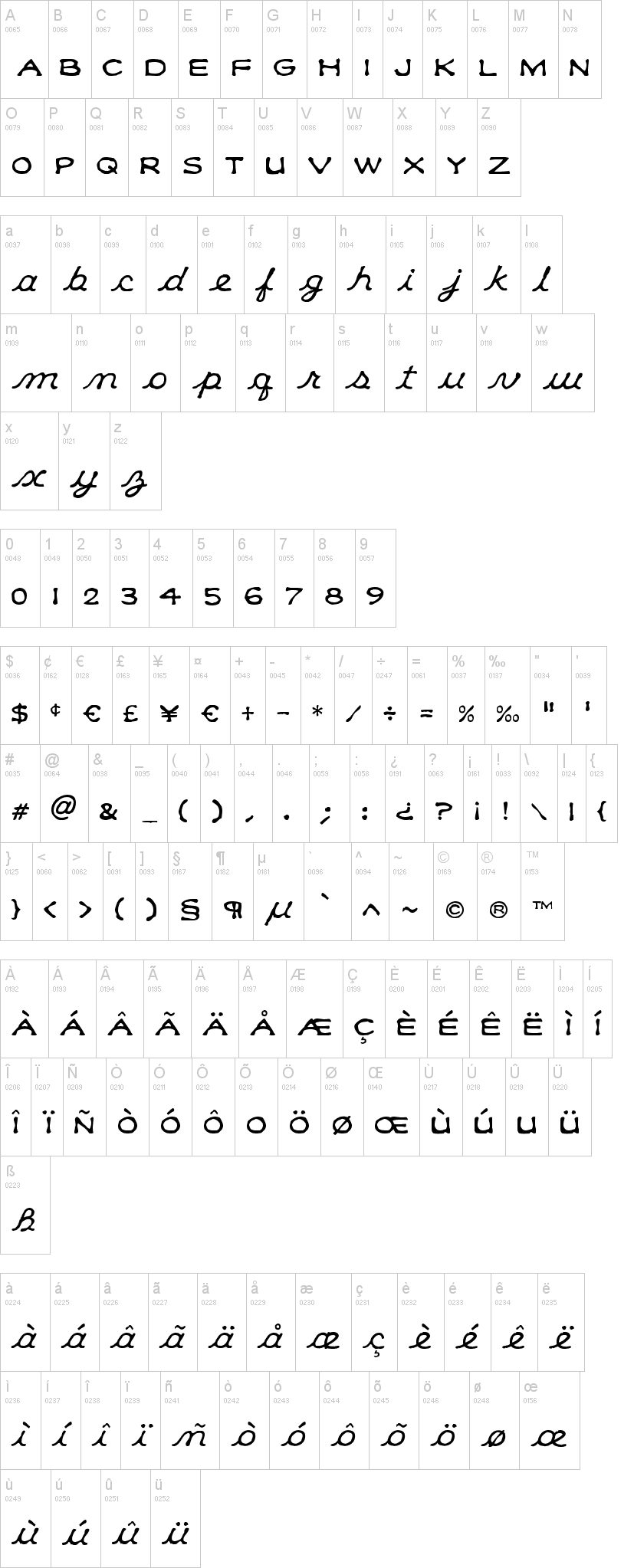
Note of the authorKlee CapScript is based on the handwritten capital letters of the American artist, Emma Klee. Klee Print is now available from K-Type.